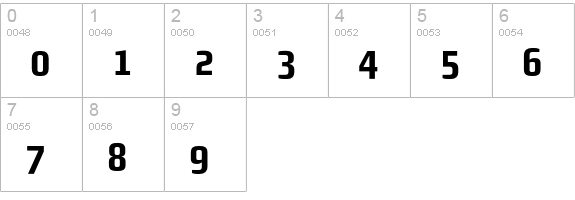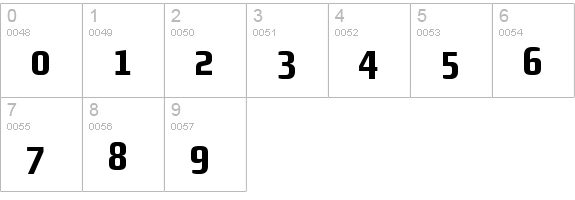
MorganSansCond BoldExpert Font Details
MorganSansCond BoldExpert font is a striking and versatile typeface designed to make a bold statement in any design project. With its clean lines, strong presence, and expertly crafted proportions, this font exudes confidence and modernity. Whether you're creating a poster, logo, or website, MorganSansCond BoldExpert is sure to capture attention and leave a lasting impression. The best part? This exceptional font is available for free download at FontsMarket.com. Now you can elevate your designs with this premium typeface without breaking the bank. Don't miss out on the opportunity to add MorganSansCond BoldExpert to your font collection and take your creative projects to the next level.